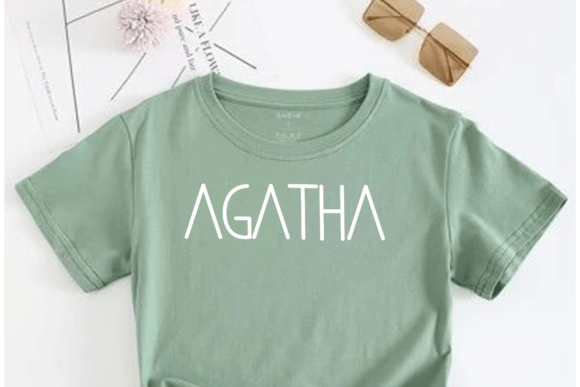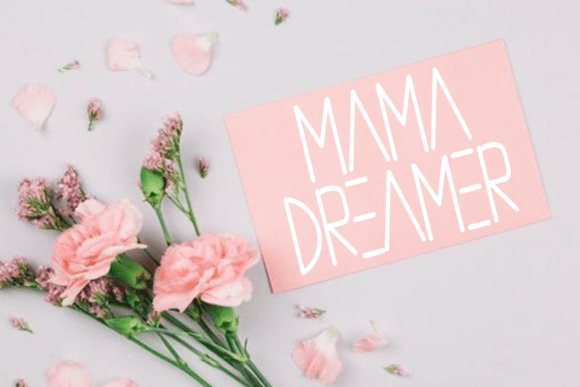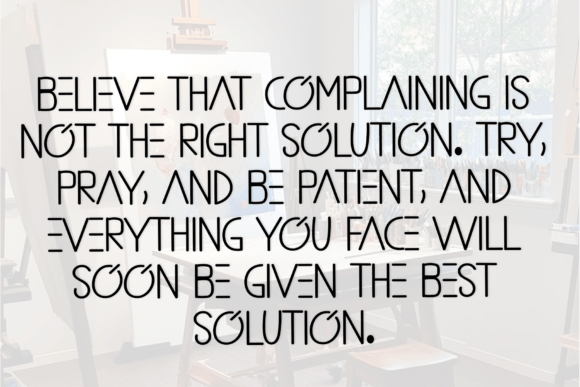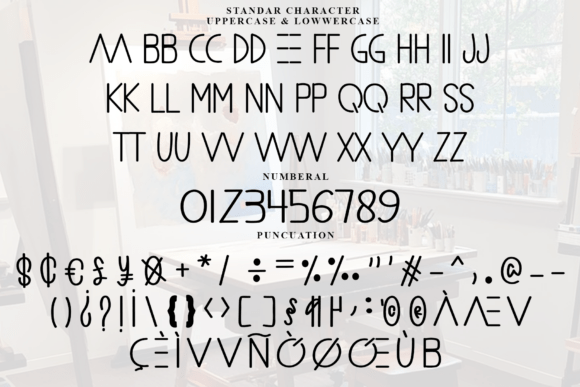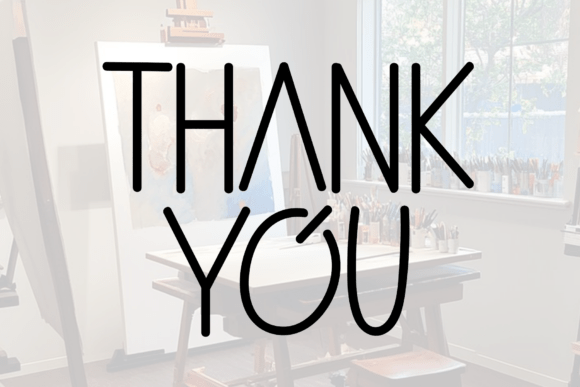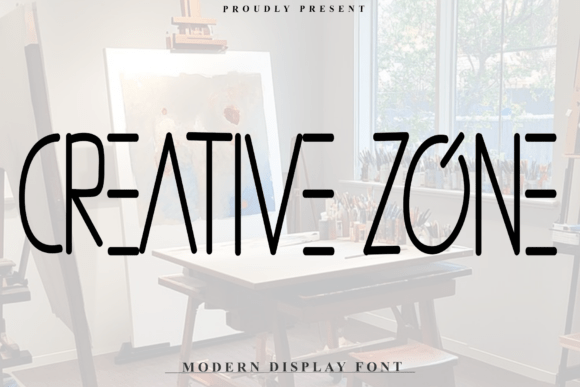
Introducing Creative Zone Font: Elevate Your Designs with Precision and Style
In the world of typography, fonts play a crucial role in defining the aesthetic and tone of a design project. For designers and crafters seeking a modern, technical, and sleek display font, Creative Zone is an exceptional choice. This article will delve into the features, benefits, and applications of Creative Zone Font, exploring how it can elevate your designs with its unique blend of precision and style.
Design Characteristics of Creative Zone Font
Creative Zone is a sleek and technical display font that boasts a sharp, modern geometric silhouette. Its design is characterized by:
• Tall, Vertically Elongated Letterforms: The font features tall, vertically elongated letterforms that exude a sense of professionalism and sophistication.
• Consistent, Monolinear Stroke Weight: The consistent, monolinear stroke weight adds to the font’s modern and geometric feel, ensuring a cohesive visual flow.
• Smooth, Rounded Terminals: The smooth, rounded terminals soften the font’s edges, preventing it from feeling too harsh or technical.
The Personality of Creative Zone Font
The personality of Creative Zone Font is defined by its organized horizontal rhythm and unique character geometry. This combination provides a sense of:
• Professional Architectural Precision: The font’s geometric silhouette and consistent stroke weight evoke a sense of precision and attention to detail, making it ideal for technical brand identities and architectural title blocks.
• Airy Visual Flow: The tall, elongated letterforms and smooth terminals create an airy visual flow, making the font perfect for clean editorial headers and sophisticated digital interface titles.
Applications of Creative Zone Font
Creative Zone Font is a versatile typeface that can be applied to various design projects, including:
• Technical Brand Identities: The font’s modern, technical feel makes it an excellent choice for tech brands, startups, and innovative companies.
• Clean Editorial Headers: Creative Zone’s airy visual flow and precise character geometry make it perfect for editorial headers, adding a touch of sophistication to articles, blogs, and publications.
• Architectural Title Blocks: The font’s architectural precision and technical feel make it an ideal choice for title blocks in architectural designs, blueprints, and construction projects.
• Sophisticated Digital Interface Titles: Creative Zone’s modern, geometric silhouette and smooth terminals make it perfect for digital interface titles, such as app headers, website titles, and UI elements.
Why Choose Creative Zone Font?
With its unique blend of precision, style, and versatility, Creative Zone Font offers several benefits to designers and crafters, including:
• Improved Readability: The font’s clear, geometric silhouette and consistent stroke weight ensure excellent readability, even at small sizes.
• Enhanced Aesthetic Appeal: Creative Zone’s modern, technical feel and airy visual flow add a touch of sophistication to any design project.
• Flexibility: The font’s versatility makes it suitable for a wide range of applications, from technical brand identities to editorial headers and digital interface titles.
Creative Zone Font is a premier asset for designers and crafters seeking a modern, technical, and sleek display font. Its unique blend of precision, style, and versatility makes it an excellent choice for various design projects. By incorporating Creative Zone Font into your designs, you can elevate your work with a sense of professional architectural precision and airy visual flow. Whether you’re working on technical brand identities, clean editorial headers, architectural title blocks, or sophisticated digital interface titles, Creative Zone Font is an exceptional choice that is sure to impress.